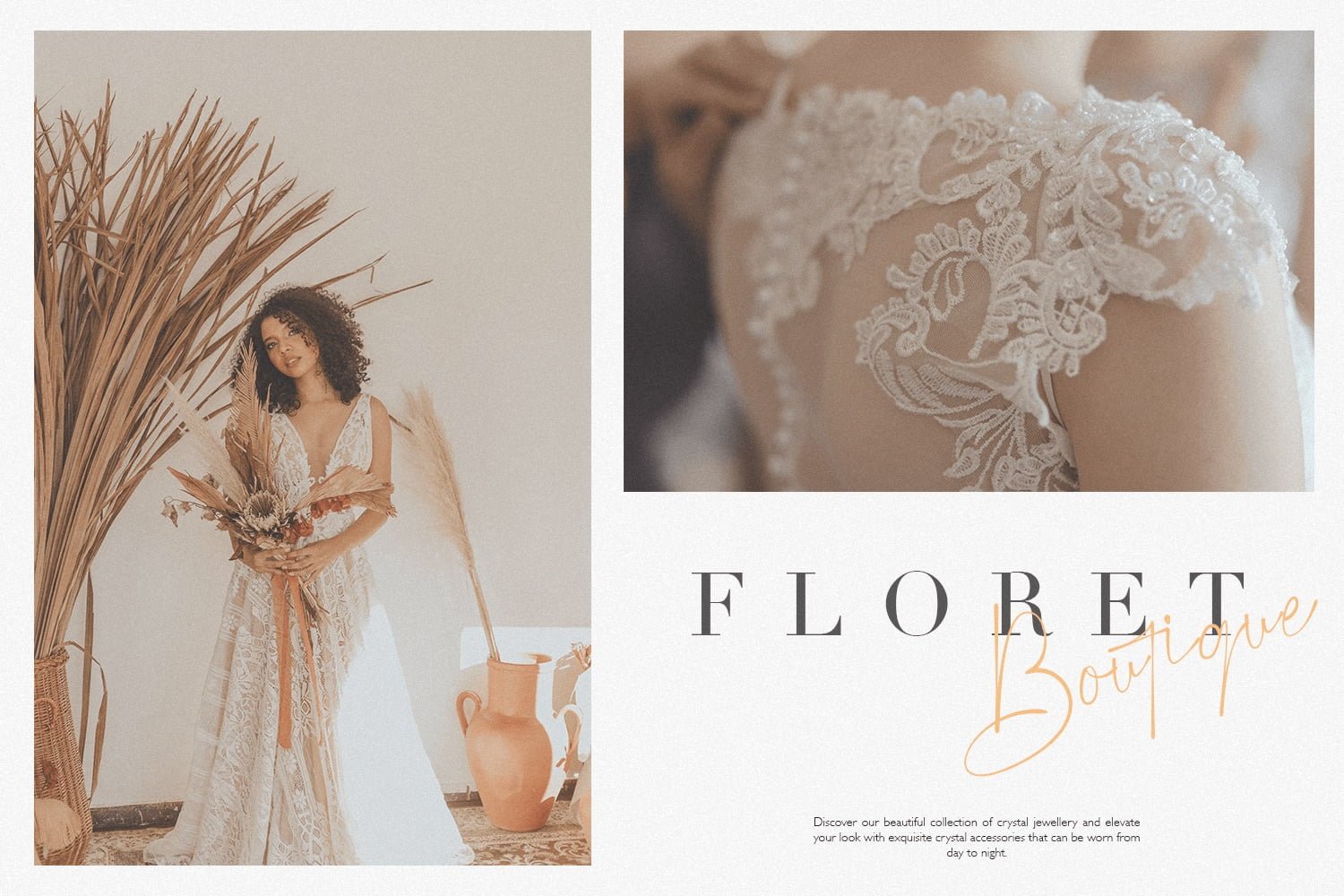
Discover the Power of Handwriting Fonts in the Digital Age
Hey there! Handwriting fonts are hot right now! They’re taking over traditional fonts in the digital world. They add a personal touch that audiences love. Want to know why? Keep reading to find out and learn how they can help your content!
Castlegar Handwriting
Why Handwriting Fonts are Gaining Popularity in the Digital Age
Handwriting fonts are becoming popular in the digital age. They create a personal connection with the reader that traditional fonts can’t match. Handwriting fonts are unique and authentic, perfect for businesses that want to showcase their individuality. They’re also great for adding a personal touch to digital projects like wedding invitations, greeting cards, and social media posts. Handwriting fonts are here to stay!
Lethbridge Handwriting
How Handwriting Fonts Enhance User Experience
Handwriting fonts are great for digital designs. They’re easy to read and can improve readability for those with reading difficulties. They can also increase engagement and make your content more personal. Handwriting fonts are perfect for invitations and greeting cards, giving readers a warm and personalized experience. Try using handwriting fonts to make your content stand out and connect with your audience.
Nova-Scotia Handwriting
Examples of Successful Brands Using Handwriting Fonts
Handwriting fonts are increasingly becoming popular and some of the world’s biggest brands are using them to their advantage. Here are a couple of examples:
1. Coca-Cola’s famous handwriting font has been around since the late 1800s, and is still widely recognized today. It’s said to represent the brand’s friendly, optimistic, and authentic personality.
2. Etsy’s all about handmade and vintage goods. They use a handwritten font in their logo, website, and app to show off that homespun vibe.
How to Incorporate Handwriting Fonts into Your Brand
Handwriting fonts can inject personality and uniqueness into your brand, but it’s important to use them strategically while balancing them with traditional fonts.
1. Pick the perfect handwriting font that suits your brand’s vibe. Consider the mood you want to create, like bubbly for a playful brand or elegant for a serious one. Make sure it’s easy to read on mobile and works for headlines or body text.
2. Balance handwriting fonts with traditional ones for readability and professionalism. Use them sparingly for important elements like headlines or call-to-action buttons. Pair them with a complementary font for contrast. Choose a handwriting font that reflects your brand’s personality, like popular Tiny Hand. It makes your brand relatable and reinforces branding.
In summary, handwriting fonts trump traditional fonts in the digital age by offering a unique, personal touch and helping content creators connect more deeply with their audience. As digital communication continues to evolve, the demand for these distinctive typefaces is likely to grow, providing new opportunities for designers and content creators alike.